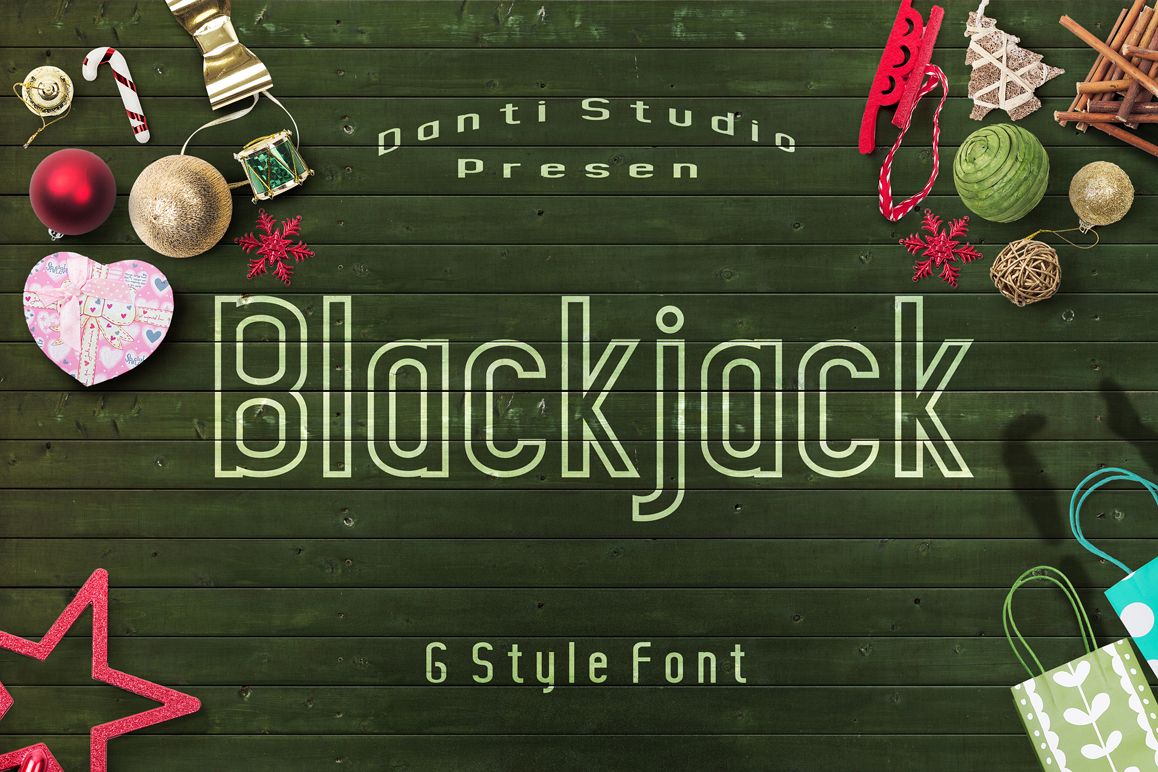
Blackjack Family
Blackjack is Font Family 6 Style typography with a firm structure and very comfortable for the reader, also has a simple character. very suitable for official media such as banners, magazines, newspapers, books, and others.